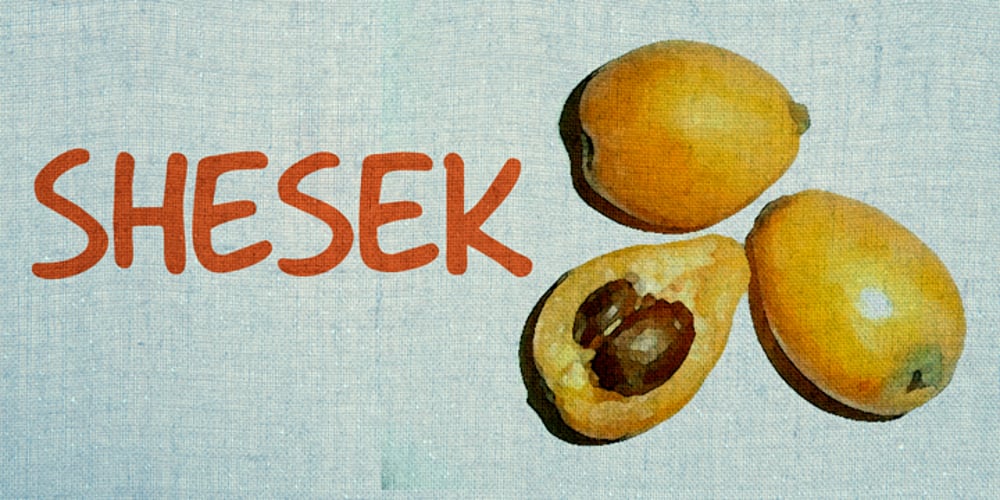
Shesek Font Family was designed by David Kerkhoff and published by Hanoded. Shesek contains 1 styles and family package options. Shesek is an informal, loose, handwritten font without any frills. It is deceivingly plain, but when you use it, you will find out that Shesek has a distinct taste, not unlike its namesake, the Japanese plum, or Loquat. The Loquat is a soft, oval, yellow fruit which is grown mostly in Japan and Israel (where it is called ‘Shesek’).